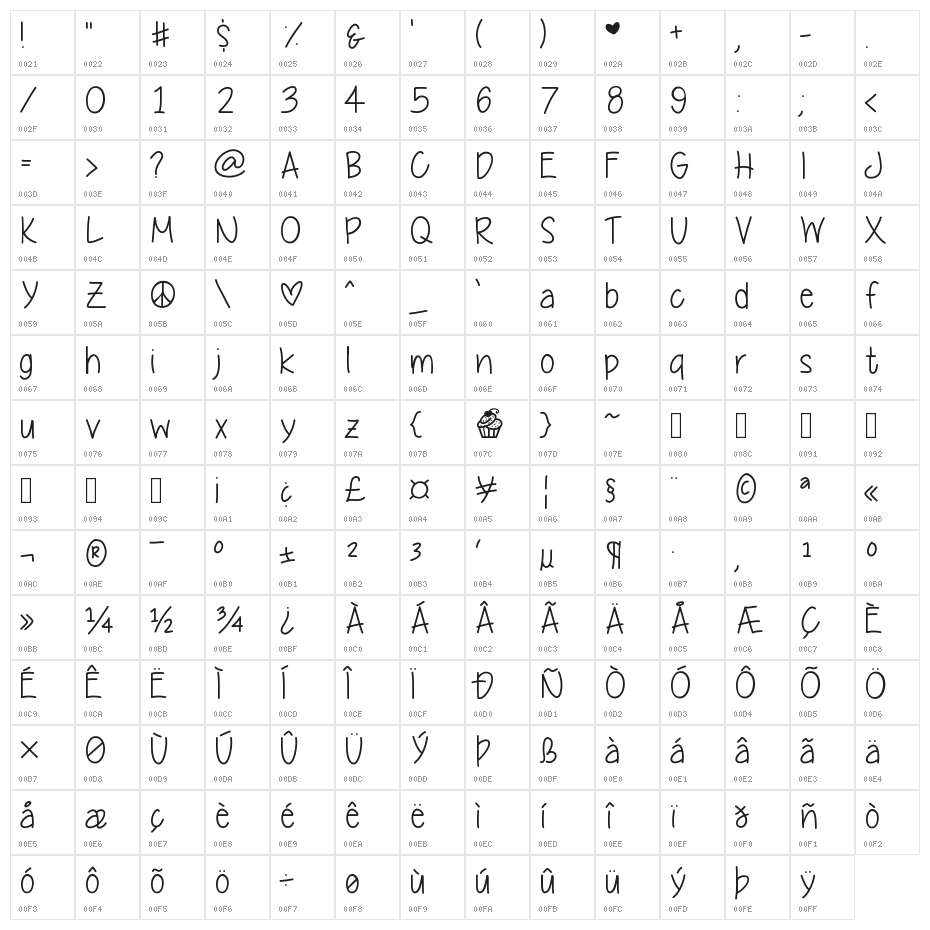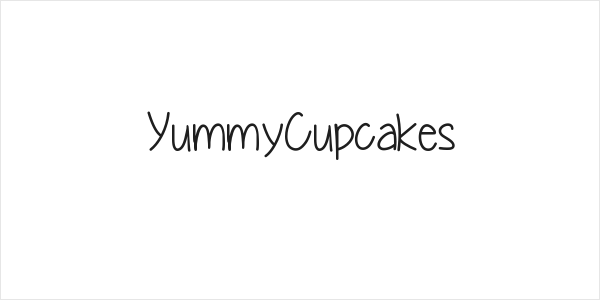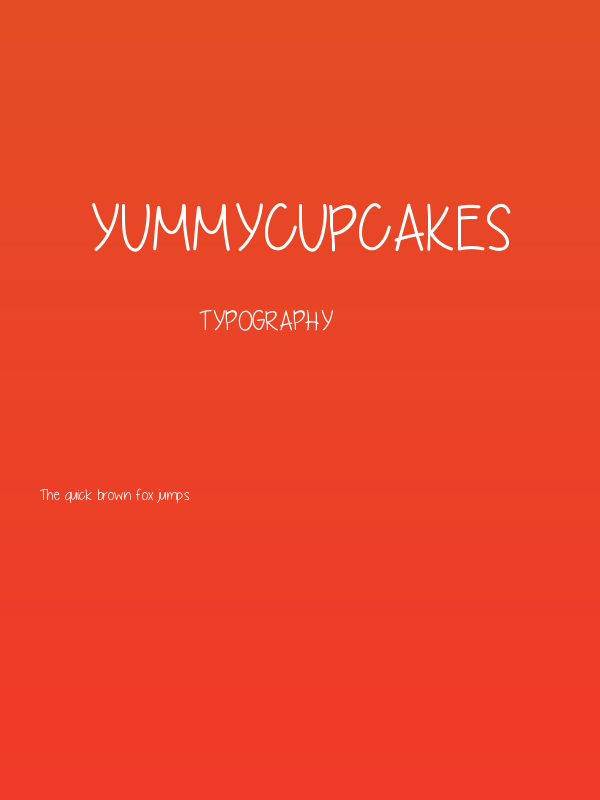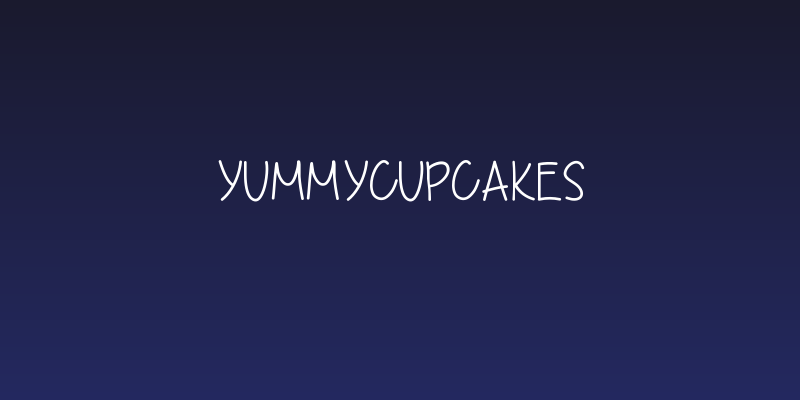
YummyCupcakes Font
YummyCupcakes Description
This playful and whimsical font features a handwritten style with a casual, friendly appearance. The letters are slightly rounded with a consistent stroke width, giving it a smooth and approachable look. The uppercase and lowercase letters maintain a uniform height, while the numbers and special characters are designed to complement the overall style. The font's informal nature makes it ideal for projects that require a personal touch or a fun, lighthearted vibe.
| Proposed Projects | Ideal for children's books, greeting cards, playful branding, and social media graphics. |